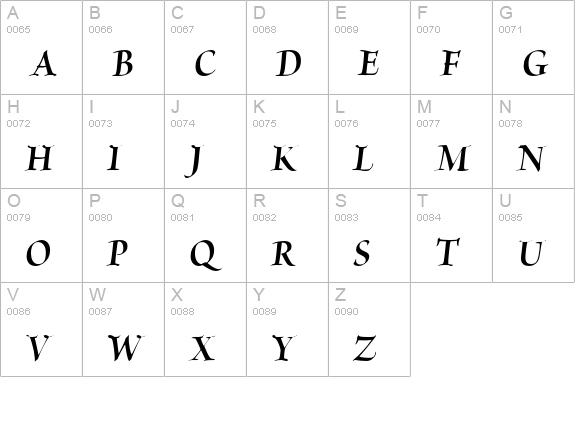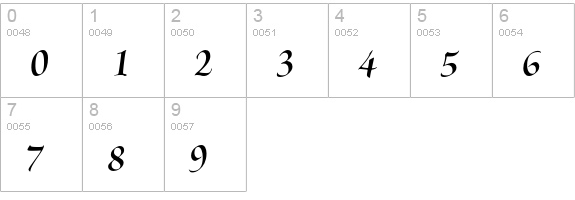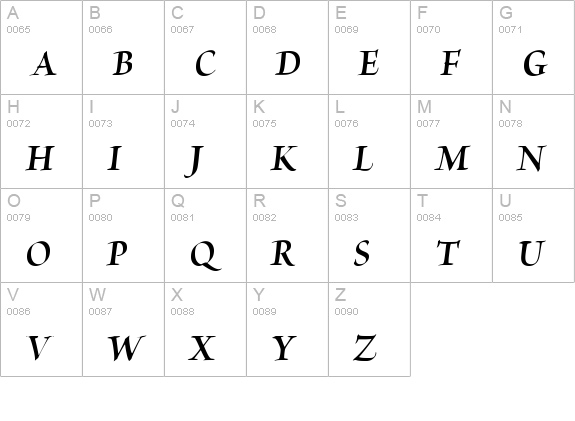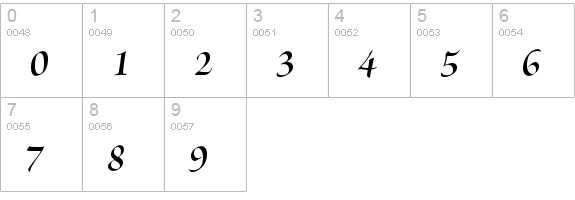
Brioso Pro Bold Italic Display is a strong, high-contrast, italic variant in the Brioso typeface family \xE2\x80\x94 well suited to headlines, attention-grabbing titles, and strong calls-to-action.
Brioso Pro Bold Italic Display font is a captivating and dynamic typeface that exudes sophistication and elegance. With its bold curves and slanted italics, this font is perfect for making a bold statement in headlines, titles, and branding materials. The sleek and modern design of Brioso Pro Bold Italic Display font makes it ideal for projects that require a touch of flair and style. And the best part? Brioso Pro Bold Italic Display font is available for free download at FontsMarket.com. Now you can elevate your designs with this stunning font without breaking the bank. Don't miss out on this amazing opportunity to add Brioso Pro Bold Italic Display font to your font collection today!